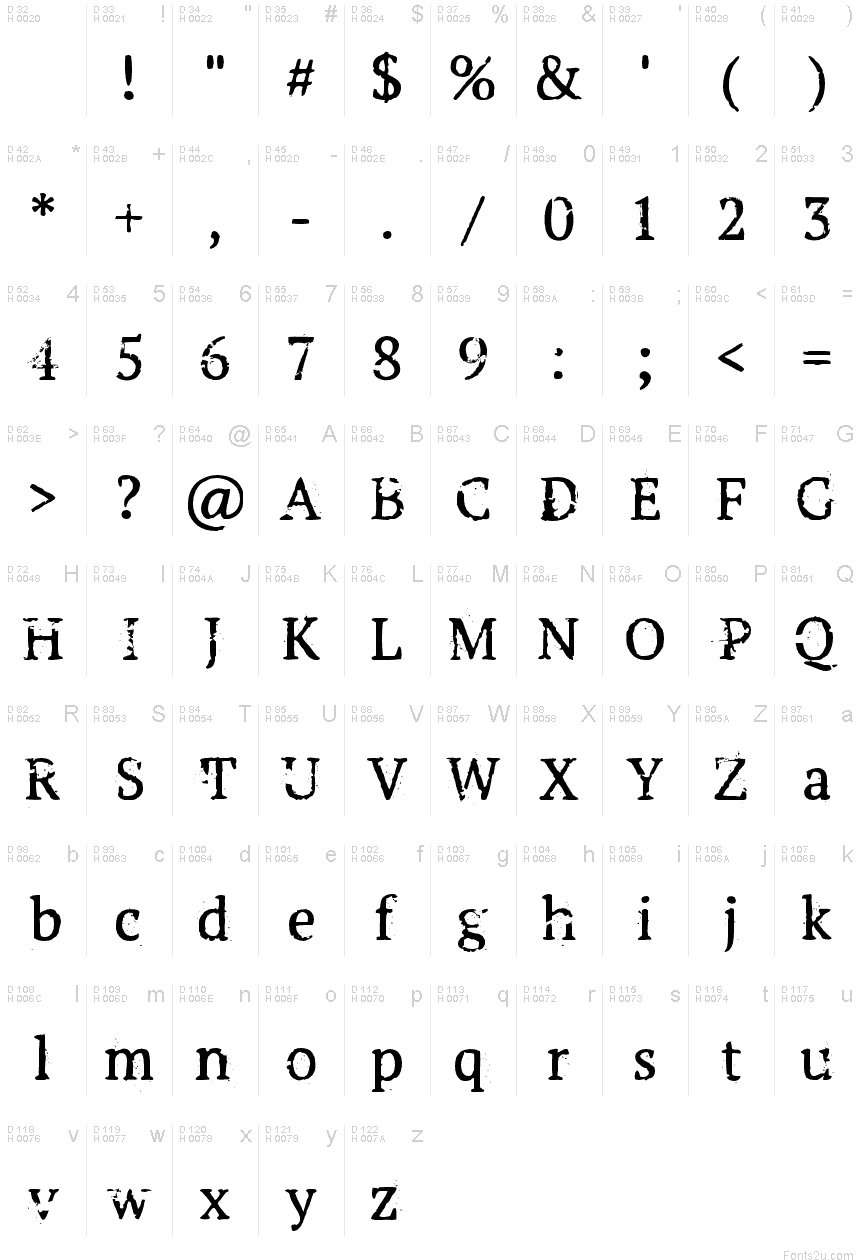
Creepshow is a free eroded display font with broad, old-style serif forms, blunt curves, uneven stroke weight, and a heavily damaged surface. Chipped edges and white gaps recall ink from a worn plate.
Poster design is its clearest medium, especially for horror screenings and Halloween events, where the battered theatrical edge feels suitably dark and ominous. The same rough print character suits album covers, haunted-attraction signage, and grim game title screens. In those settings, the letters can become scenery, like faded ink on a damaged handbill or weathered warning sign.